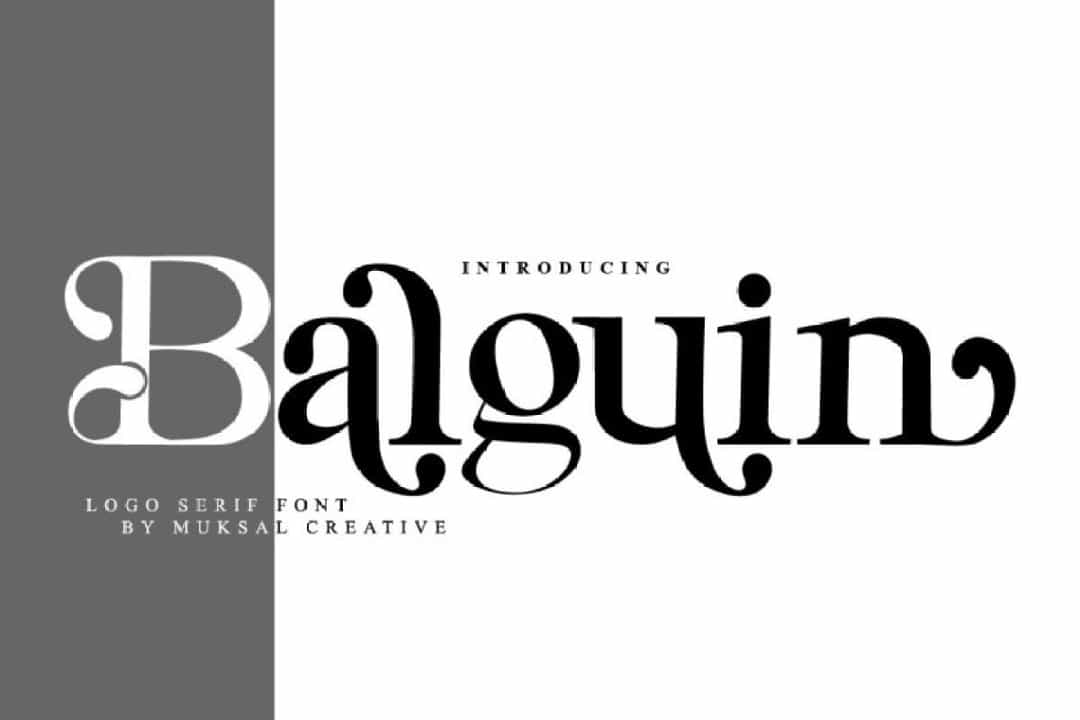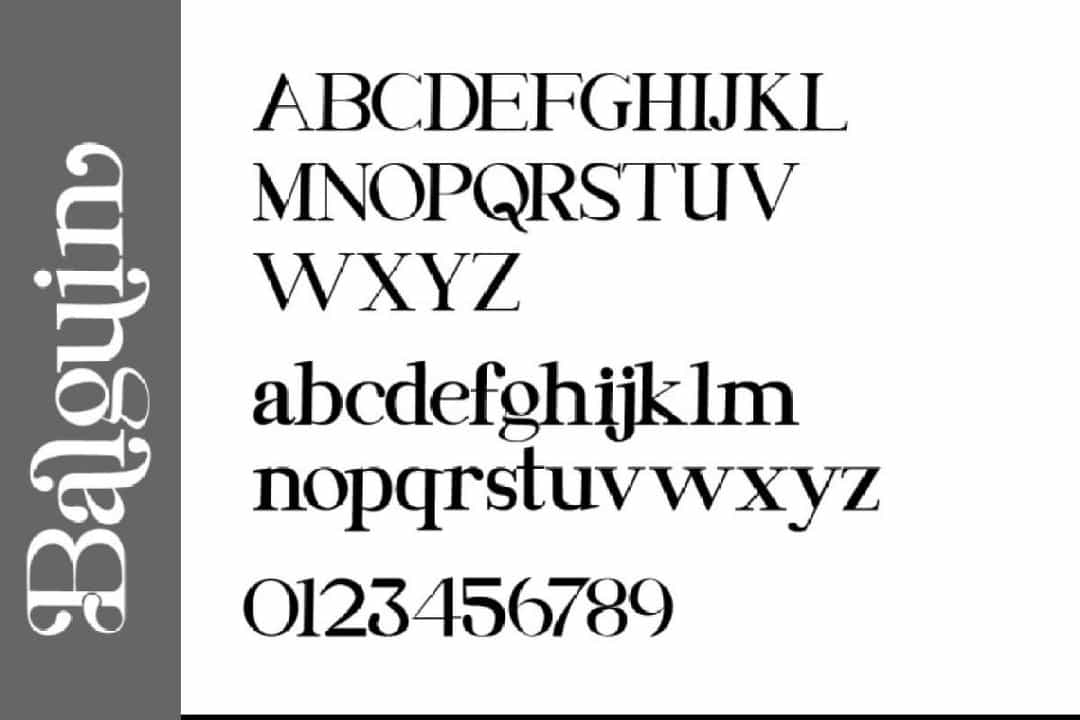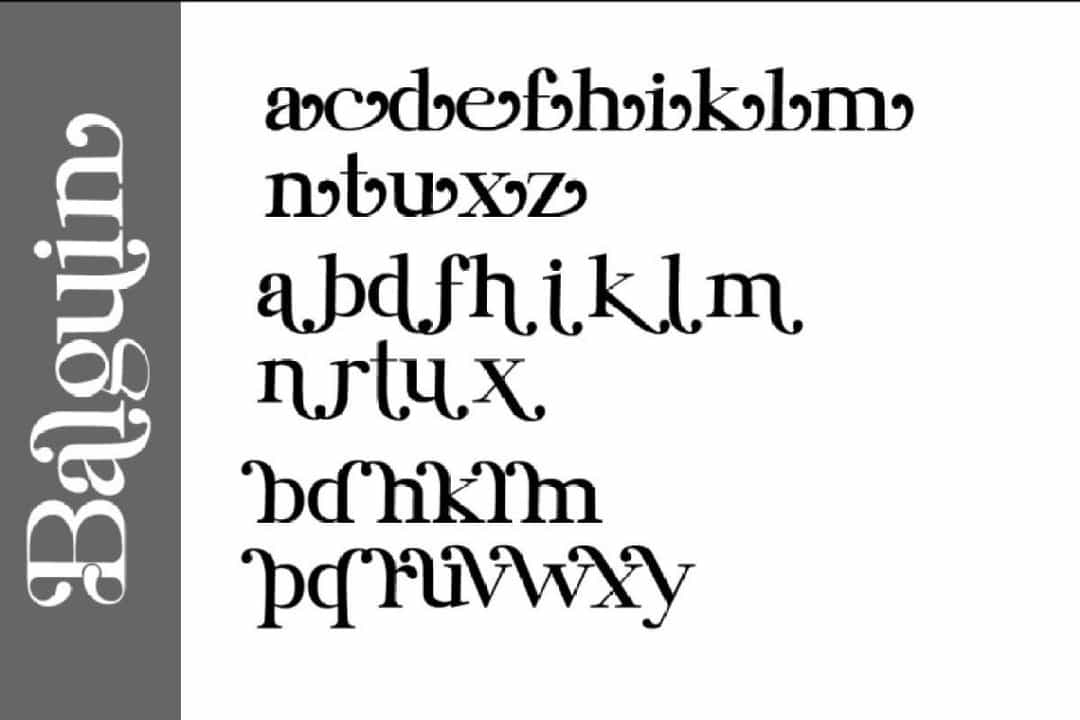
Discover Balguin Font, part of the Serif collection—a versatile and unique font perfect for adding a personal touch to your projects. Download it for free and enjoy crafting designs with style, from invitations to social media posts. This font is available exclusively for personal use, giving you the freedom to create without limits. Unlock your creativity with Balguin Font today!
Balguin is a bold fashion luxury modern and stylish font that has a Serif look and feel that will get your designs noticed. This font is fully suitable for the modern design projects of logos, branding, invitations, wedding elements, websites, Instagram, business cards and many more!